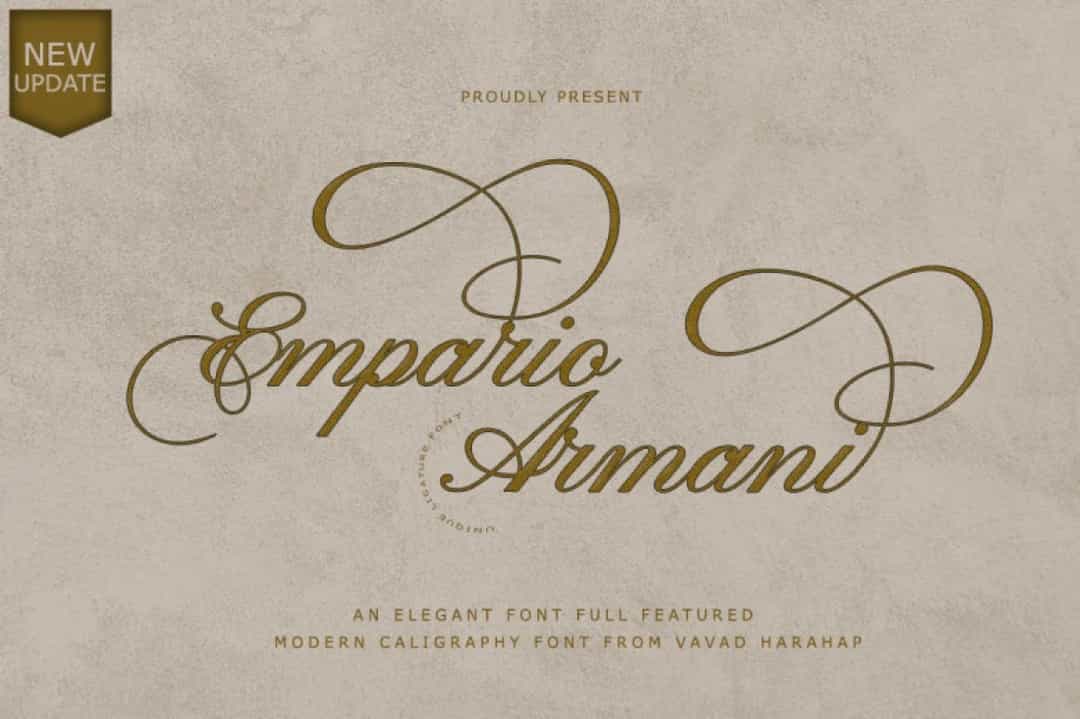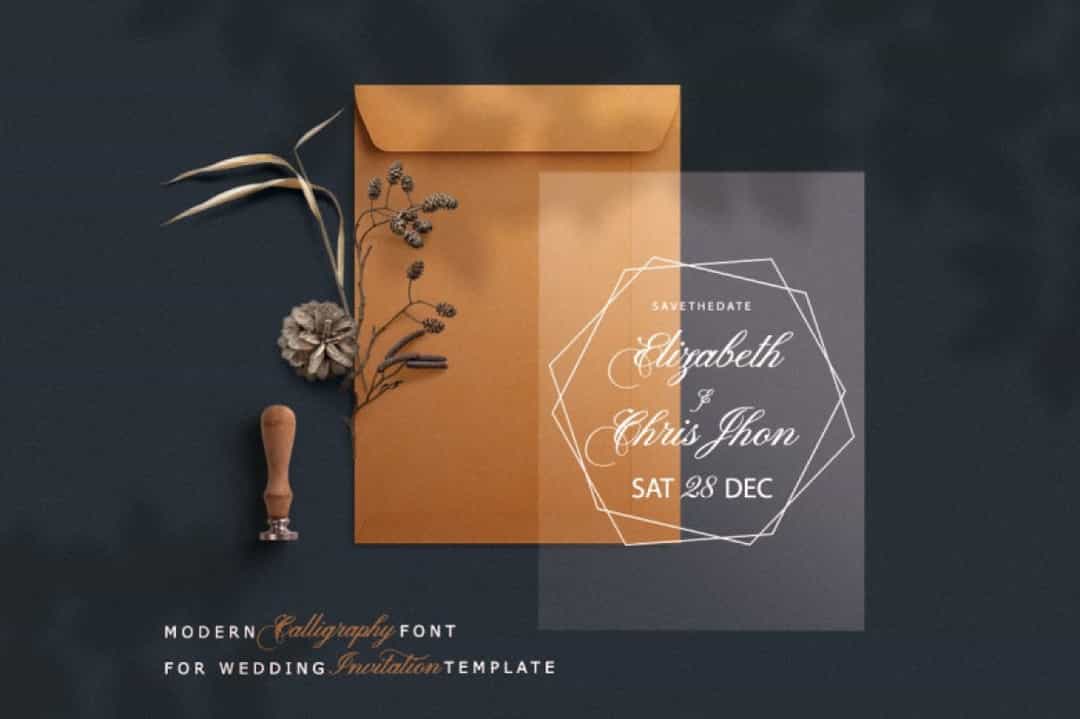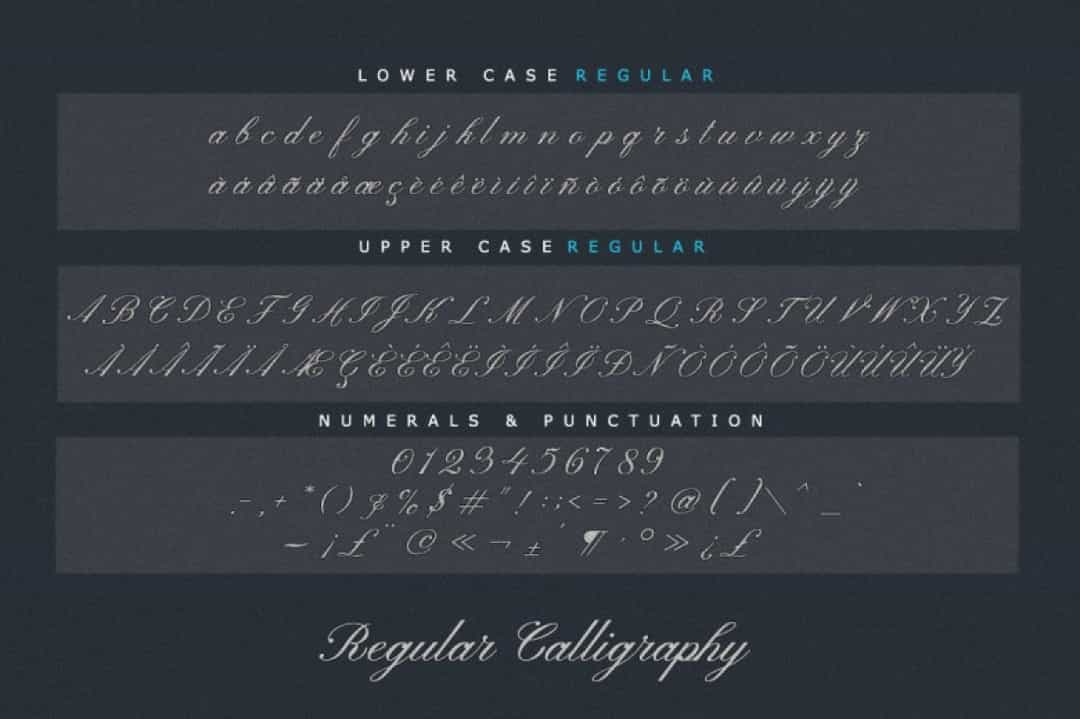
Discover Empario Armani Font, part of the Calligraphy collection—a versatile and unique font perfect for adding a personal touch to your projects. Download it for free and enjoy crafting designs with style, from invitations to social media posts. This font is available exclusively for personal use, giving you the freedom to create without limits. Unlock your creativity with Empario Armani Font today!
Empario Armani Calligraphy Font is a luxurious font in 2020. Designed with modern handwriting and calligraphy in mind, its style offers perfect letters you’d want to use Modern handwriting/Calligraphy options with 603 characters/alternate fonts for use.